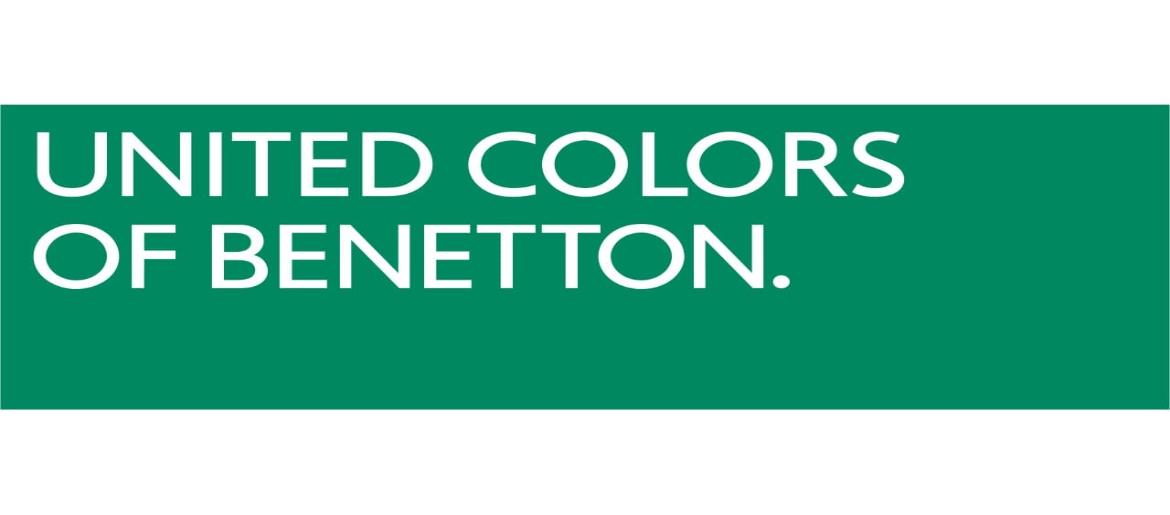
Benetton Font
What Font is United Colors of Benetton?
The Benetton font is most closely associated with Gill Sans by Monotype, a classic commercial typeface known for its clean geometry and timeless British modernist style. Its humanist curves and balanced proportions reflect the brand’s long-standing emphasis on simplicity, clarity, and approachable design. While Gill Sans is a paid font, we also found a free alternative that captures a very similar look and feel, making it a practical choice for anyone wanting to recreate the Benetton aesthetic without the licensing cost.
About Benetton
Benetton is an iconic global fashion brand recognized for its bold use of color, youthful energy, and socially conscious advertising. Founded in Italy, the company grew rapidly throughout the late 20th century, becoming famous not only for its knitwear but also for its provocative campaigns that addressed cultural and humanitarian issues. The brand’s identity blends minimalist design with a vibrant, inclusive spirit, making its visual style instantly recognizable. Over the decades, Benetton has maintained its reputation for creativity, innovation, and a fearless approach to both fashion and communication.